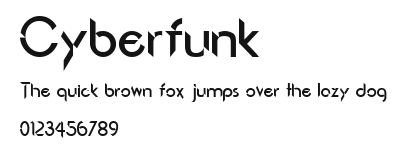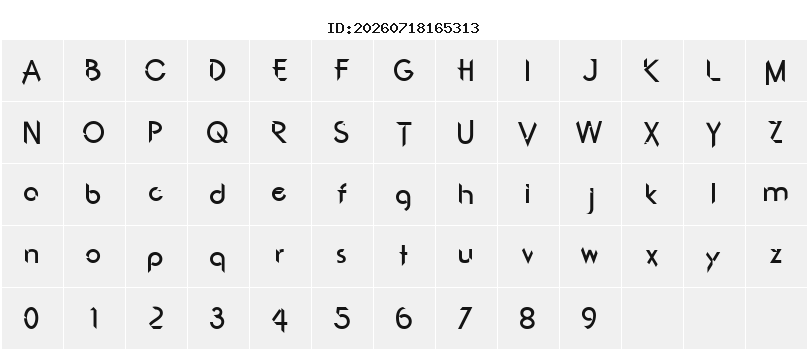
Cyberfunk Preview
• Font Name: Cyberfunk
• Designer: John Gauthier
About Cyberfunk.ttf
Cyberfunk.ttf is a modern, elegant sans-serif font designed for ultimate readability and visual harmony. Perfect for branding, headlines, web design, and print materials.